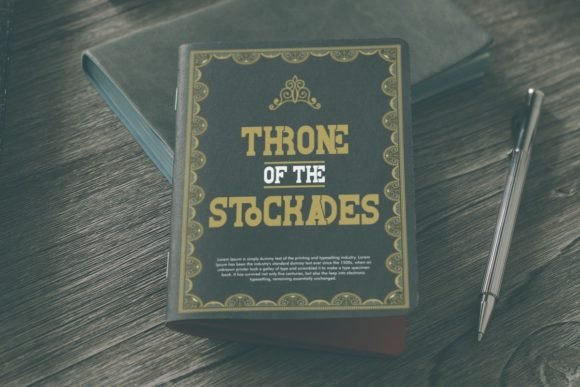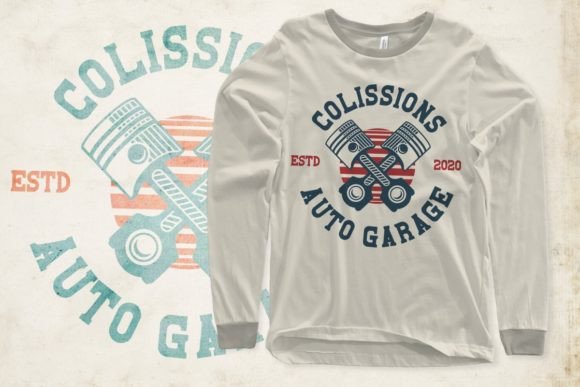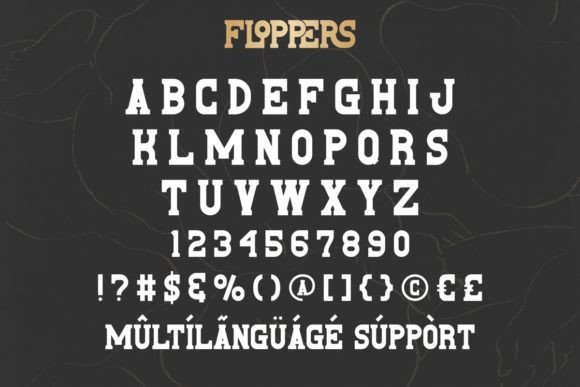
Introduction to Floppers Font
Have you ever stared at a blank canvas, feeling the urge to unleash your creativity, but struggling to find the perfect font to set the tone for your next project? I’ve been there too. But what if I told you that there’s a design resource that can elevate your creative project and make it stand out from the crowd? Say hello to Floppers Font, a classic slab serif display font style that’s about to become your new best friend.
With its authentic and exclusive look, Floppers Font is the perfect choice for any industry, from automotive to fashion, and everything in between. Its high-quality design makes it easy to read, even on a transparent background, which is a game-changer for any designer. And the best part? It’s PUA encoded, meaning you can access all of the amazing glyphs and ligatures with ease, taking your creative project to the next level.
Floppers Font: Key Features
- High-quality design resource perfect for creative projects, offering a unique and stylish look.
- Available in a single size, with a high resolution of 300 DPI, making it suitable for both digital and print projects.
- Unique characteristics include a playful and whimsical feel, making it ideal for children’s books, advertising, and other creative projects.
- Designed to be versatile, allowing users to experiment with different font sizes, colors, and combinations to achieve a unique look.
Honest Review: Floppers Font
I recently came across the Floppers Font while searching for design resources for a creative project. I was immediately drawn to its playful and whimsical feel, making it perfect for adding a touch of personality to my designs.
- ✨ The transparent background option allows for seamless integration into various design elements.
- ✨ The font’s versatility makes it suitable for a wide range of creative projects, from digital art to print materials.
- ⚠️ The font may not be suitable for formal or professional designs, due to its playful nature.
Overall, I’m impressed with the Floppers Font and would recommend it to designers looking for a fun and creative addition to their projects. While it may not be suitable for every design, it’s definitely worth considering for those looking to add a bit of personality to their work.
Floppers Font
Designing with Floppers Font in Canva
Tips for Getting the Most Out of Floppers Font
To get the most out of Floppers Font, experiment with different font sizes, colors, and combinations to achieve a unique look. Additionally, use the font in conjunction with other design elements to create visually appealing graphics.
Common Use Cases for Floppers Font
Floppers Font is commonly used in social media graphics, marketing materials, and website design. Its creative and modern design makes it an ideal choice for any project requiring a high-quality, eye-catching font.